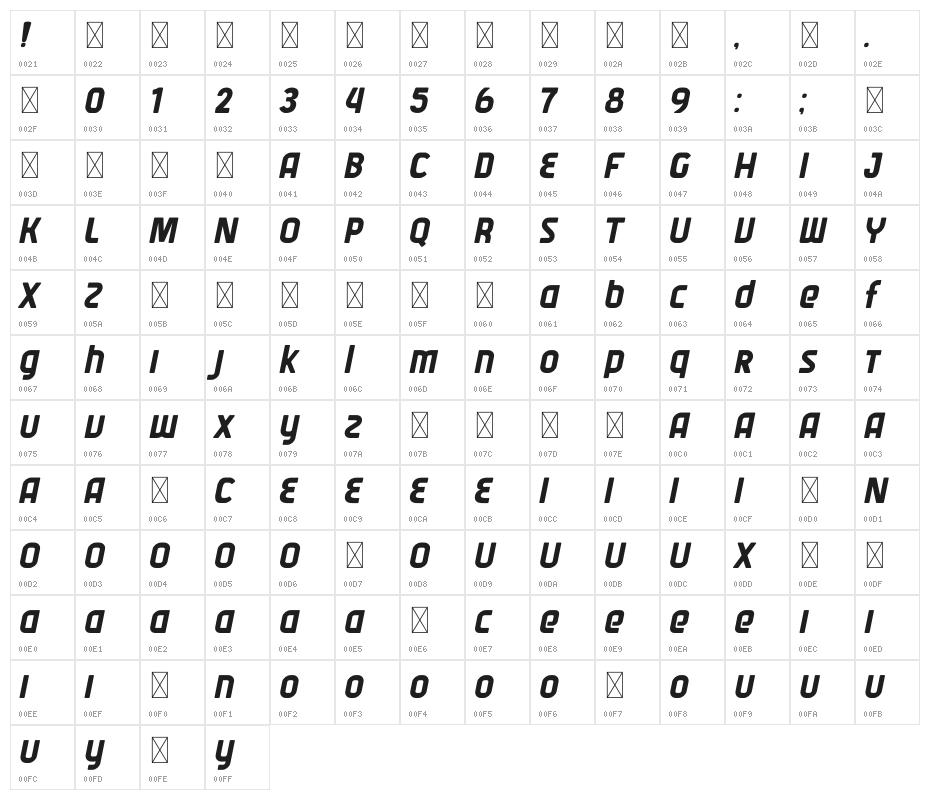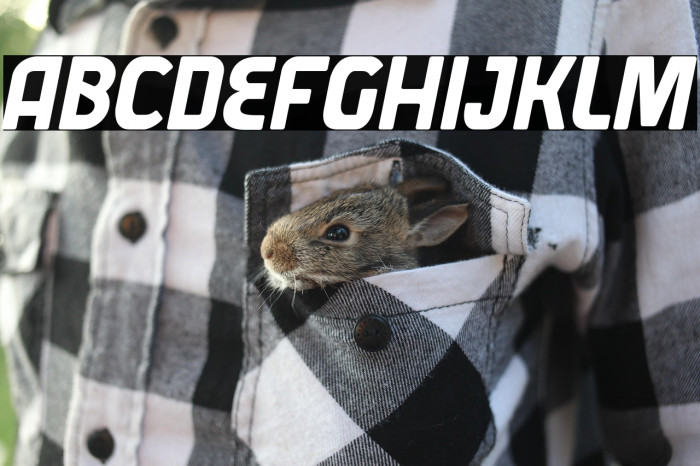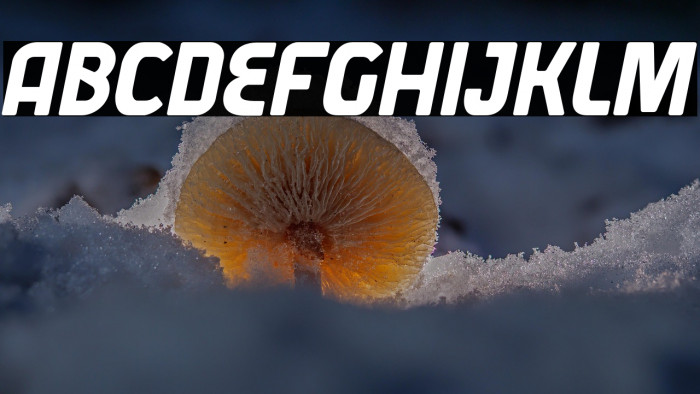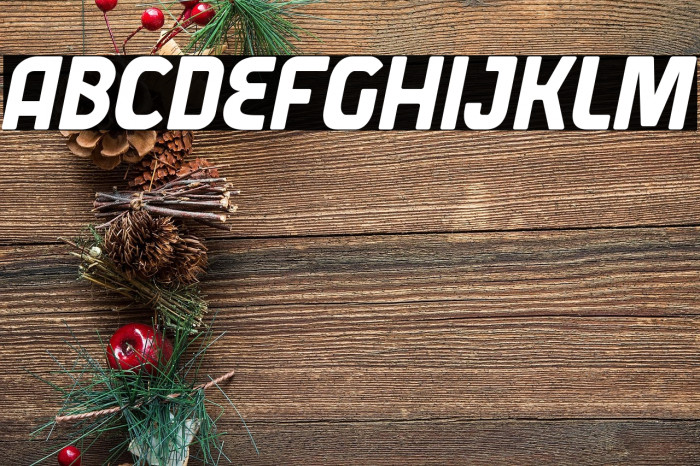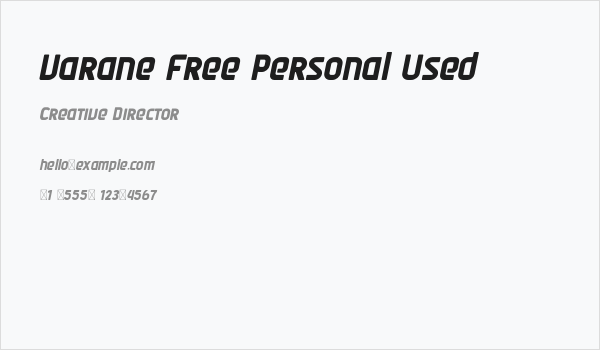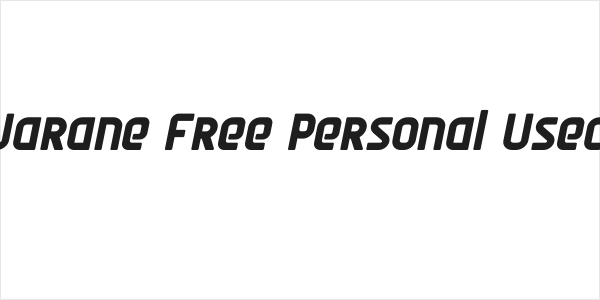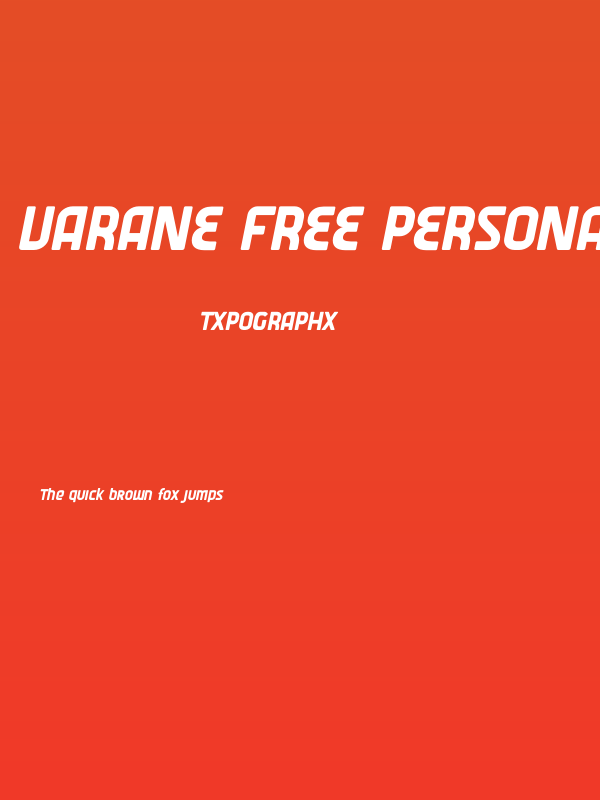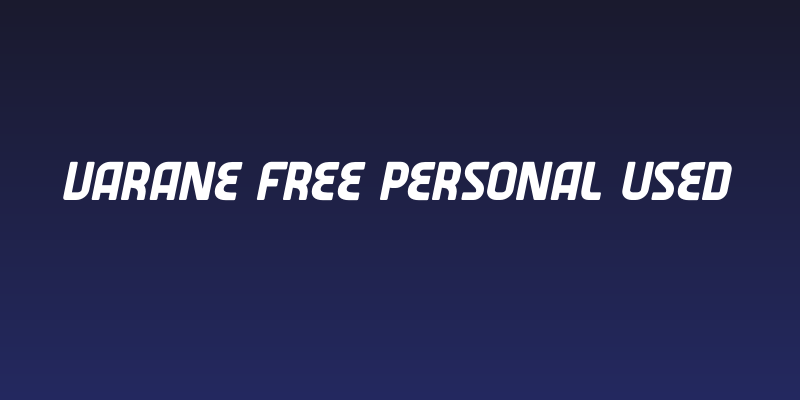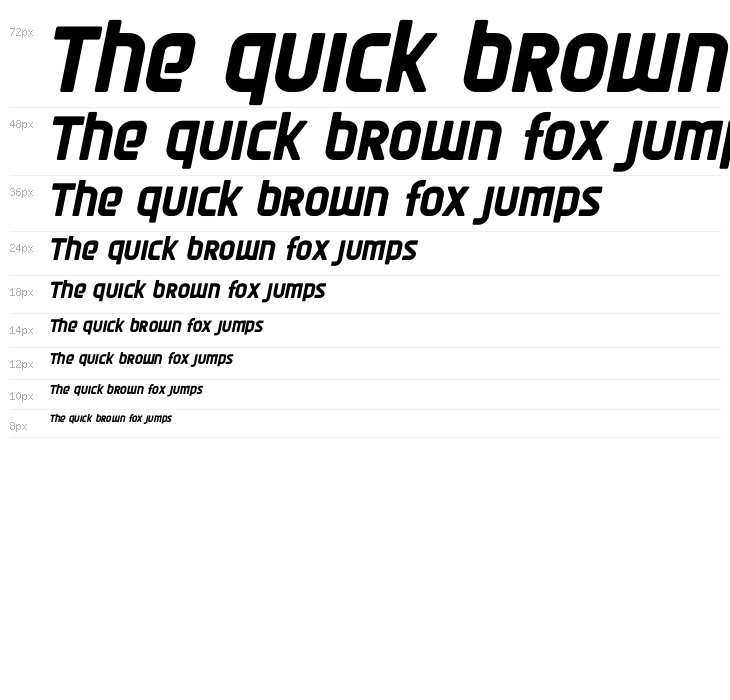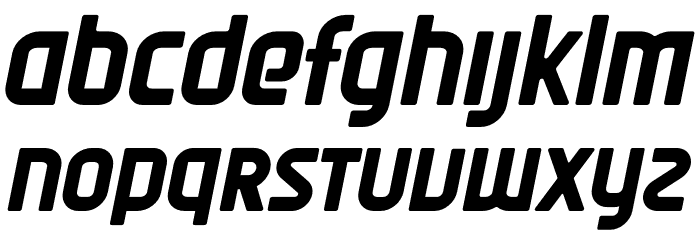
Varane Free Personal Used Font
Varane Free Personal Used Description
This font features a bold and modern design with a slight slant, giving it a dynamic and forward-moving appearance. The characters are well-defined with a consistent stroke width, providing a clean and uniform look. The uppercase letters are strong and impactful, while the lowercase letters maintain readability with a slightly rounded form. The numerals are distinct and easy to read, making them suitable for various applications. The special characters are designed to complement the overall style, ensuring consistency across all glyphs.
| Proposed Projects | Ideal for sports branding, dynamic posters, modern advertisements, and tech-related projects. |